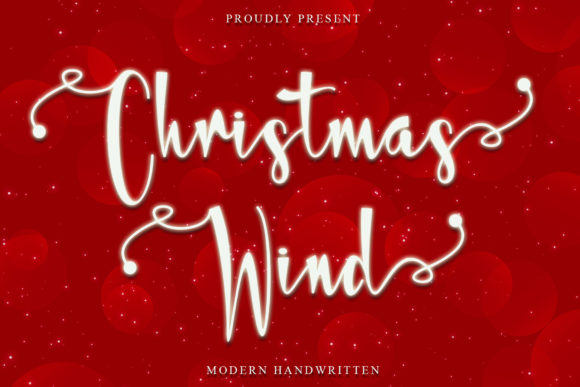
Journey into a world of holiday cheer with Christmas Wind font, a script typeface that exudes elegance and festive charm. Its graceful lines dance across your digital canvas, evoking the magic of the Christmas season. Whether you're crafting heartwarming invitations, spreading holiday cheer through greeting cards, or designing eye-catching branding, Christmas Wind is your perfect companion.
Step into a realm of creativity where words transform into delicate snowflakes, and letters twirl like sugarplums. Christmas Wind's elegant curves and beautiful flourishes bring a touch of whimsy and enchantment to your designs, making them truly unforgettable. Let your imagination soar as you explore endless possibilities with this captivating font, the perfect choice for capturing the spirit of Christmas.
With Christmas Wind, you'll find it a breeze to create captivating invitations that set the tone for a magical holiday gathering. Its graceful lines and elegant charm add a touch of sophistication, ensuring your guests feel the warmth and joy of the season as soon as they receive your invitation.
Design stunning wedding invitations that radiate love and romance with Christmas Wind. Its delicate strokes and romantic undertones create an enchanting atmosphere, perfectly complementing the special bond you share with your loved one. Let your wedding invitations reflect the beauty and elegance of your love story, and cherish them as a timeless keepsake.
Spread holiday cheer near and far with Christmas Wind's festive greeting cards. From heartfelt messages to playful holiday wishes, this font adds a touch of magic to your greetings. Your loved ones will feel the warmth of your words as they read them, carried by the elegant curves and charming details of Christmas Wind.
Elevate your branding with Christmas Wind's unique and captivating style. Whether you're designing logos, social media graphics, or website elements, this font adds a touch of sophistication and whimsy that sets your brand apart. Make a lasting impression on your customers and immerse them in the festive spirit of Christmas.